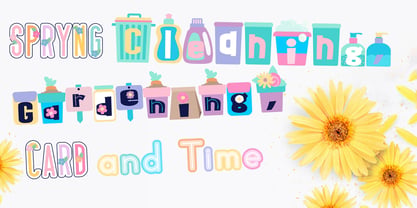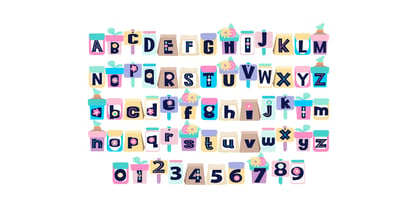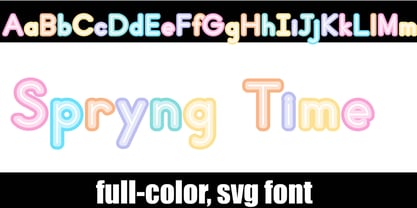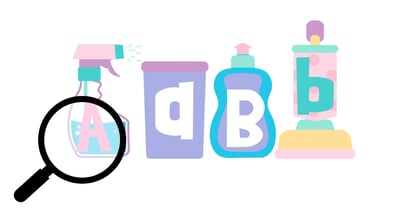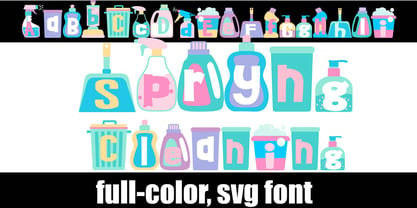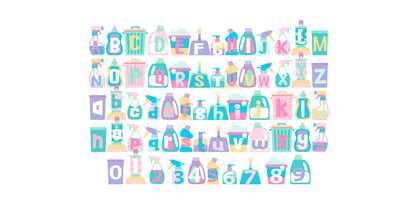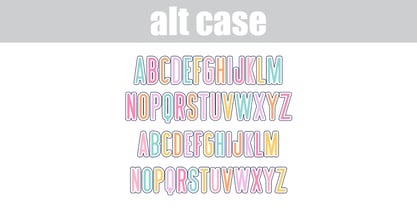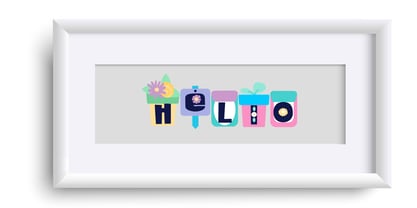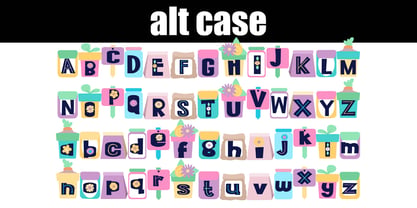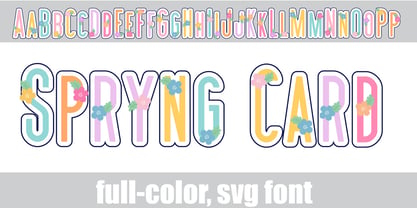
Spryng
The Spryng Font Family was designed by Illustration Ink and published by Illustration Ink. Spryng contains 4 styles and family package options. More about this family
These full-color fonts feature all things spring in a pastel, whimsical color palette. One font features spring cleaning supplies, another spring gardening, while two feature the same color palette but in different fun and whimsical styles. All 4 fonts also have full alt cases with additional colors of each letter. Full-color fonts are installed like any normal font is installed. Please note color fonts will show as black in non-compatible programs. They often show as black when choosing the font in the preview window in programs that support color fonts. You will know if your program can support color fonts when you type on the document and see them in color. Adobe products, Silhouette Studio, Quark, and Inkscape, amongst others, support full-color fonts at this time. Full-color fonts are the perfect way to add a touch of personality to your designs. With a full range of colors and styles to choose from, you can create anything from simple text logos to complex illustrations. Plus, color fonts are vector-based, so they can be scaled to any size without losing quality. Here are some of the benefits of using full-color fonts: •They are versatile and can be used for a variety of projects, from logos and branding to web design and print. •They are scalable, so you can use them for any size project. •They are high quality and will not lose their resolution when scaled. •They are easy to use and can be installed in any software that supports color fonts. •If you are looking for a versatile, high-quality font that can be used for a variety of projects, then a full-color font is the perfect choice for you.